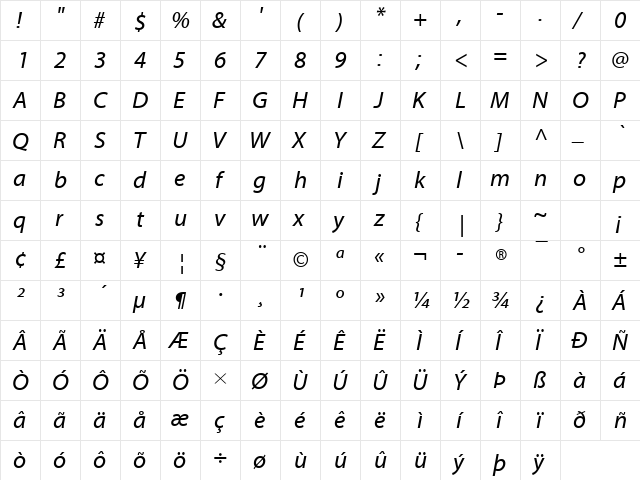
Myriad Web Italic
| Designer | Robert Slimbach and Carol Twombly |
Design Context for Myriad Web Typeface
Myriad Web is a composed and adaptable typeface that performs quietly and consistently across a wide range of design contexts. The dynamic lean of this cut emphasises speed and emphasis in any layout.
Pro Tip: Try Myriad Web for annotation and caption copy alongside an upright companion — the contrast in angle creates a dynamic but ordered typographic system.